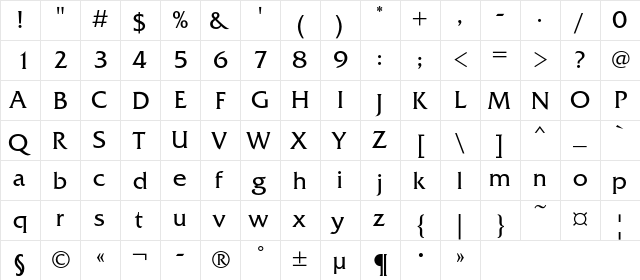
FrizQuadrataC Regular Font Preview
FrizQuadrataC Regular
Design Context for FrizQuadrataC Typeface
FrizQuadrataC offers clean, dependable letterforms without strong stylistic allegiance, making it a practical choice for designers who need flexibility.